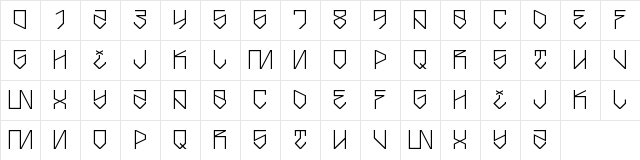
Strike Back Regular
Design Context for Strike Back Typeface
Strike Back is a composed and adaptable typeface that performs quietly and consistently across a wide range of design contexts.